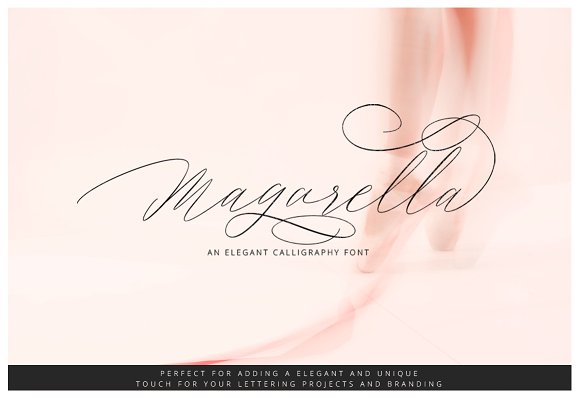
Magarella Script
Magarella Script Font
Magarella Script – a new fresh & modern script with a calligraphy style, a dancing baseline! So beautiful on invitation like greeting cards, branding materials, business cards, quotes, posters, and more!